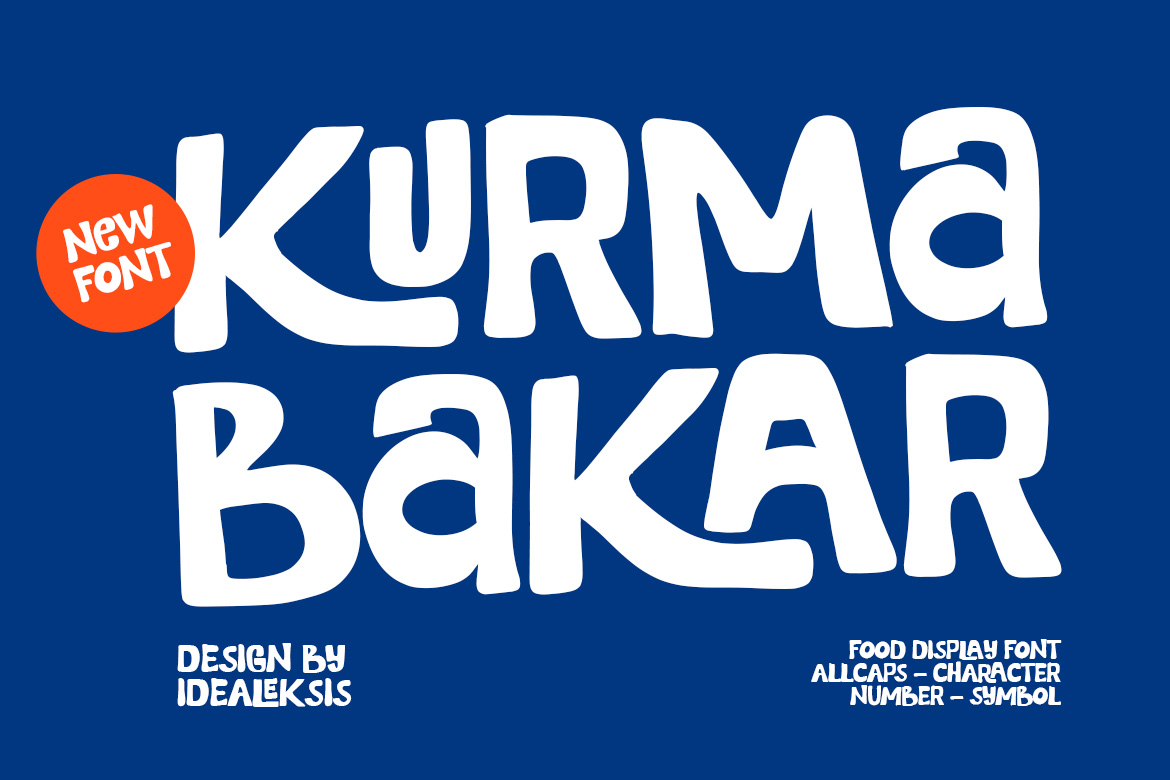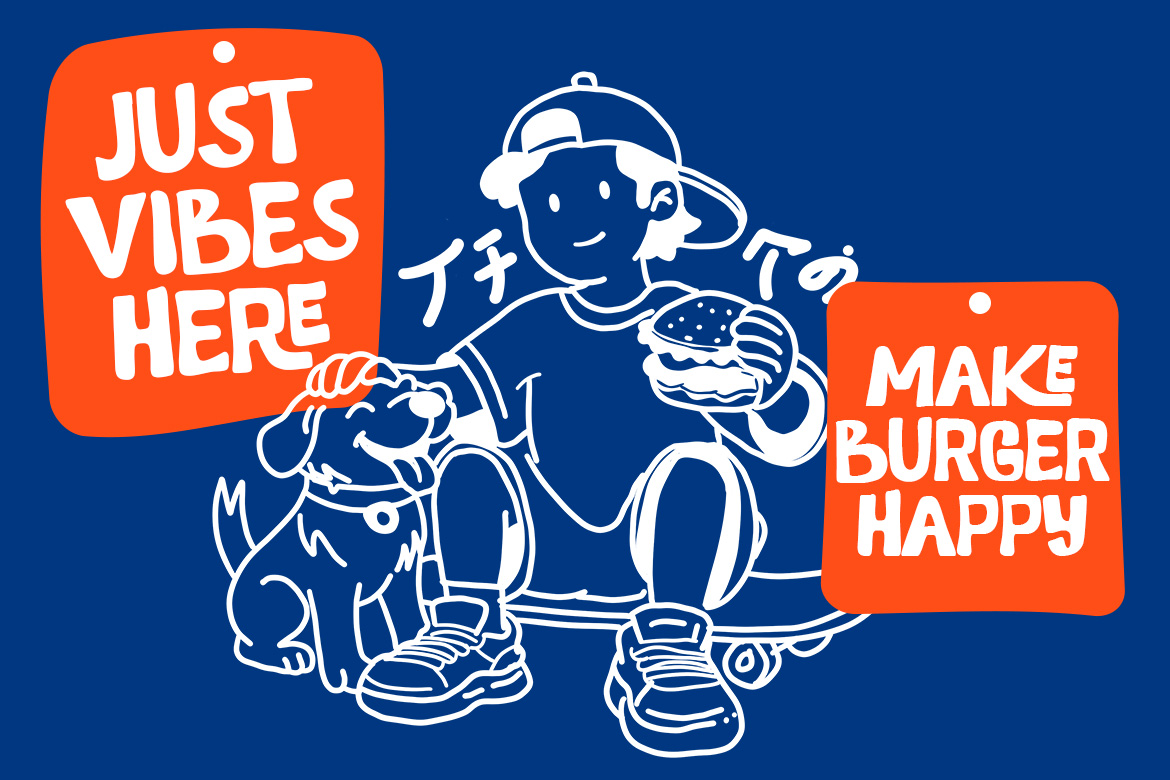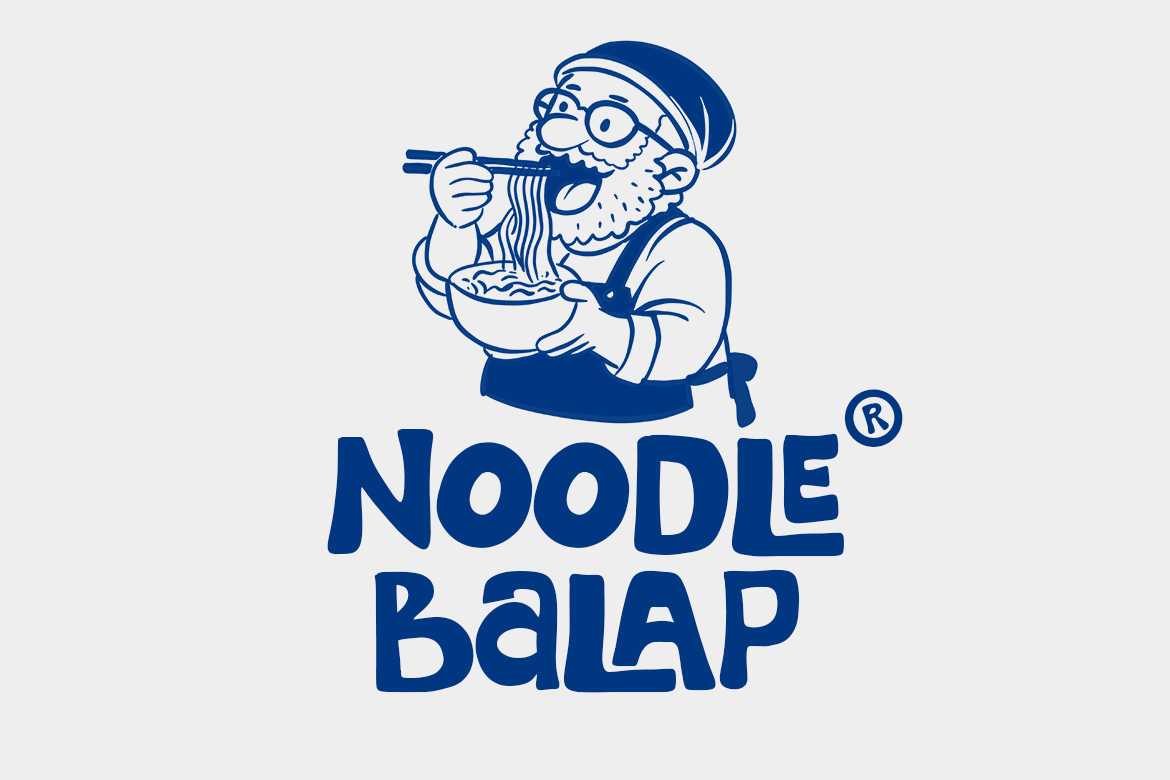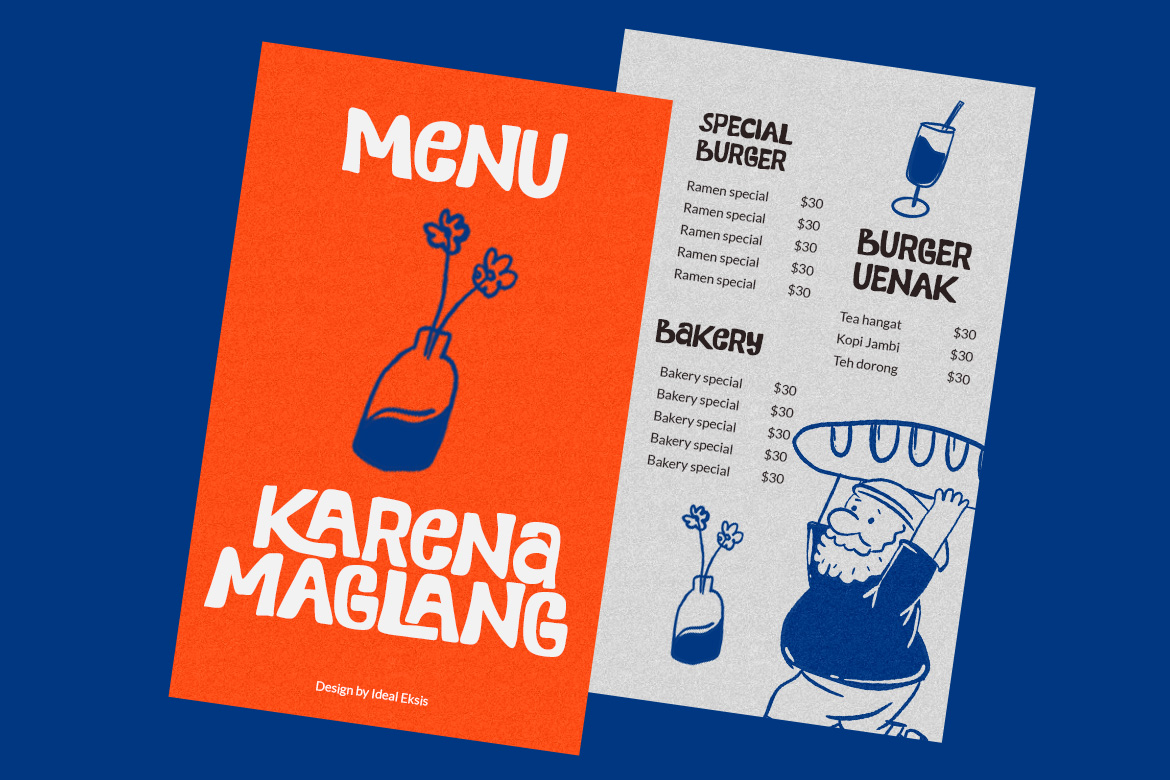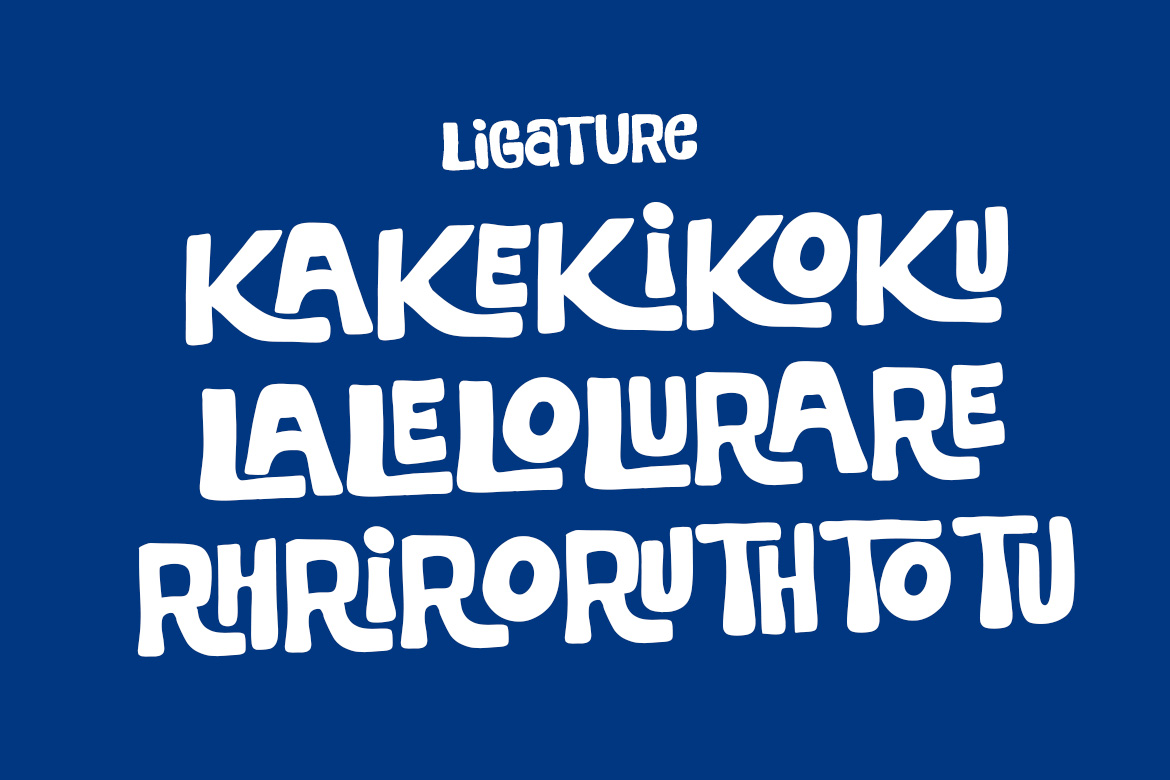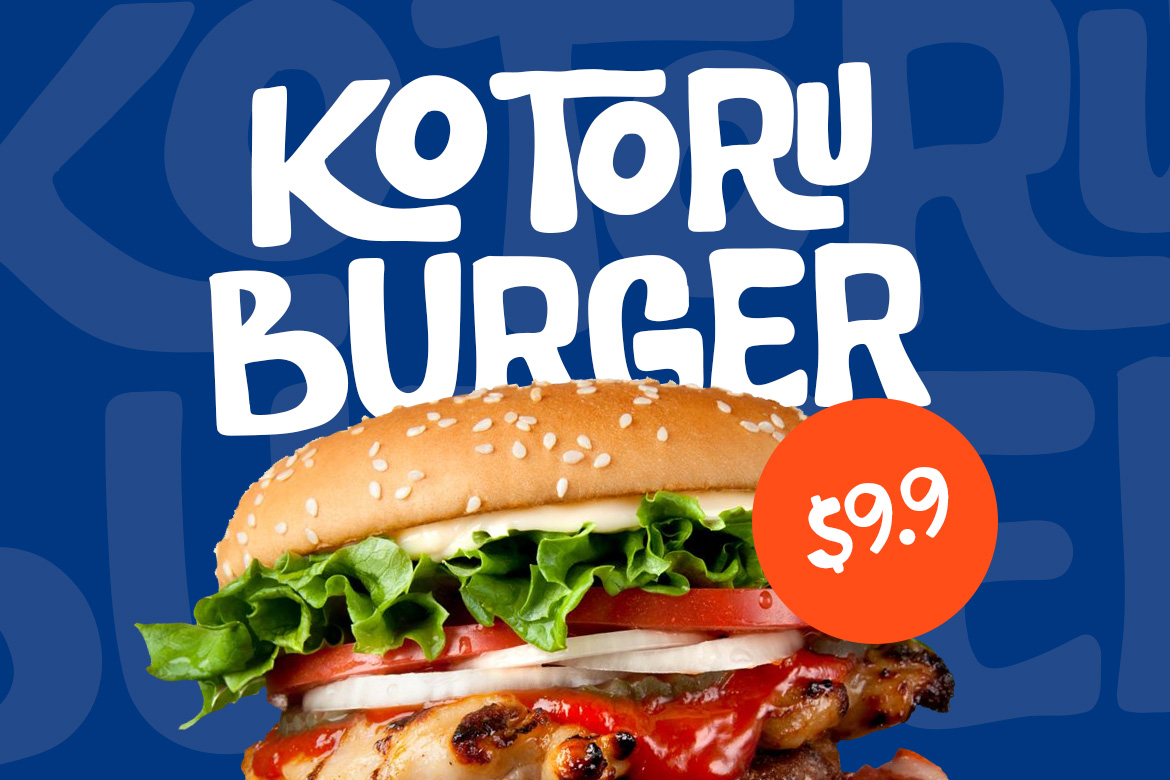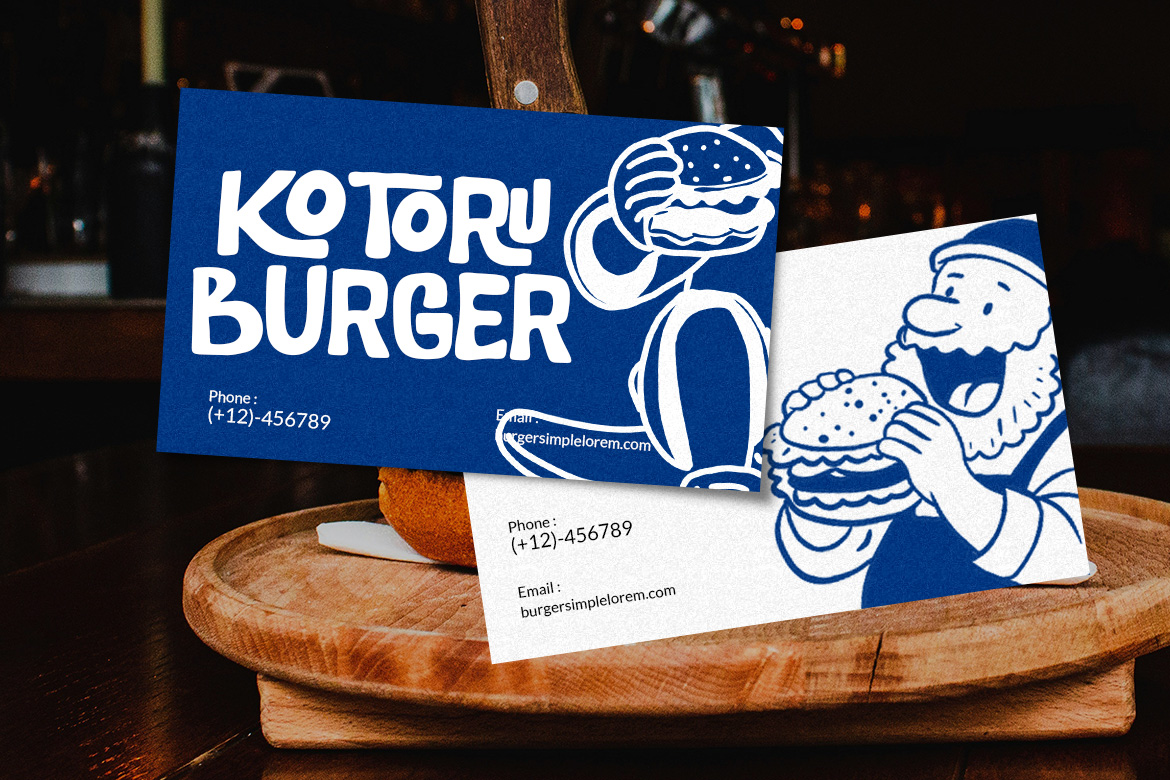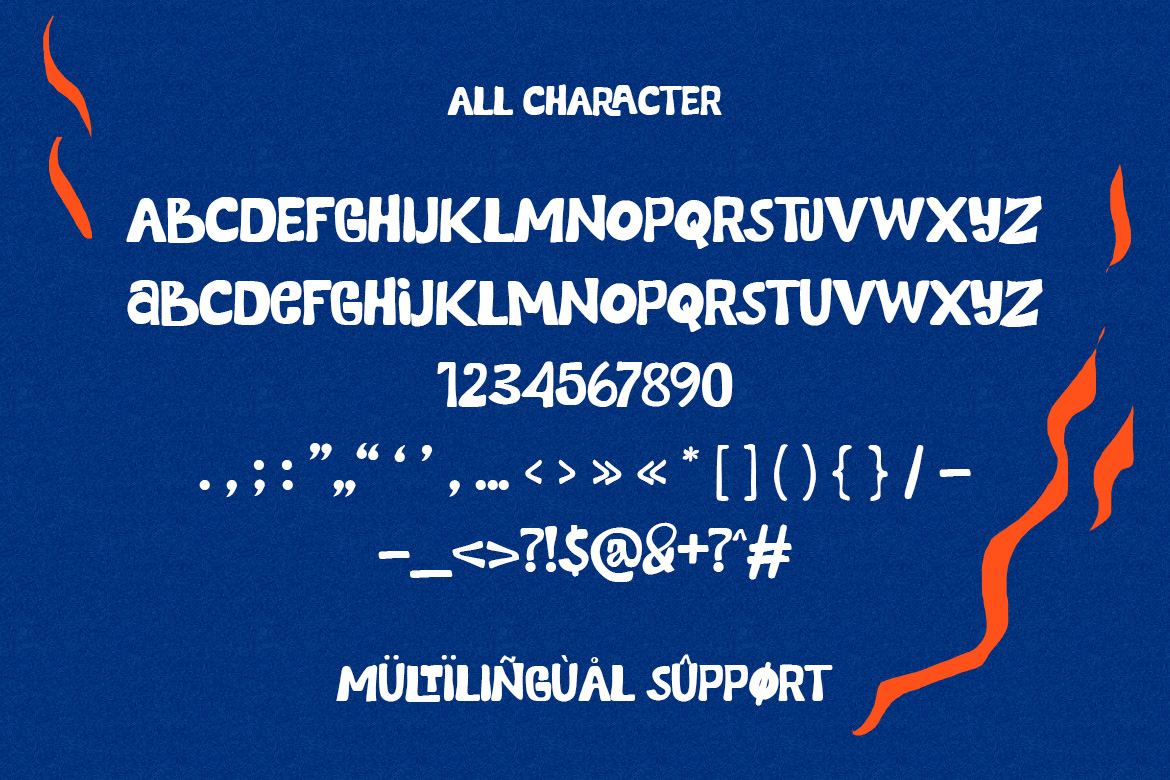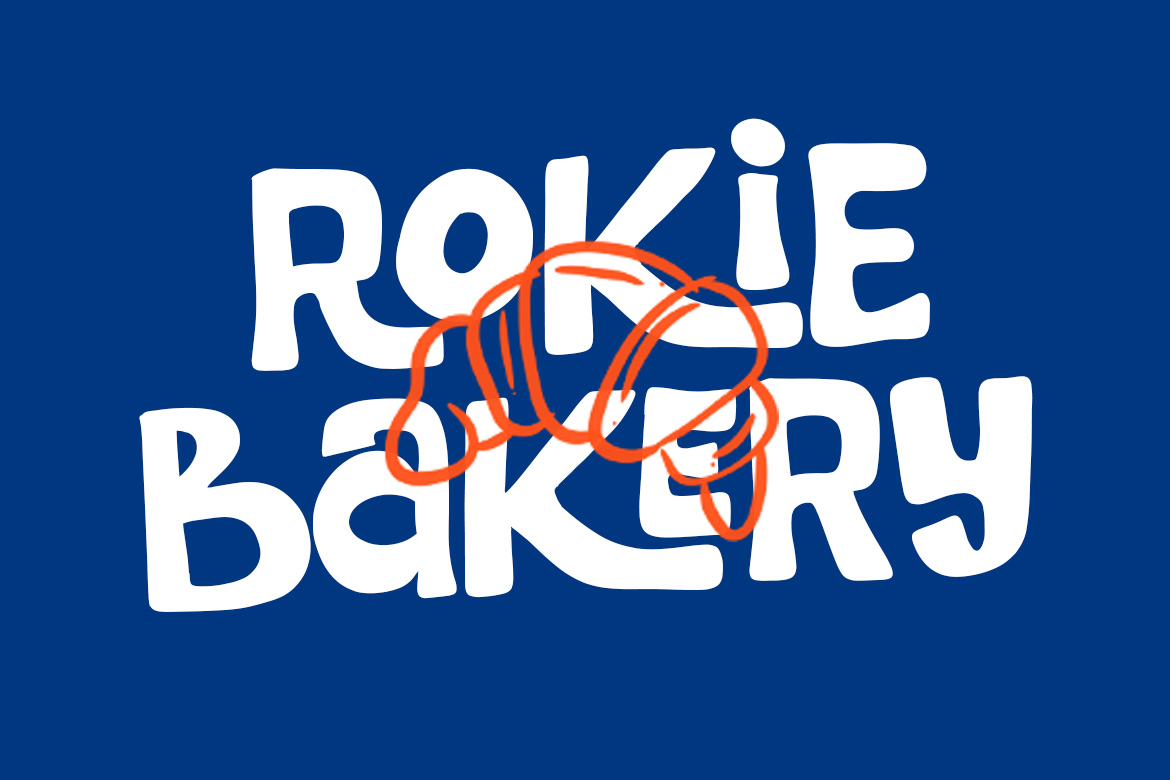
This typeface features heavy, irregular strokes with a hand-cut or paper-cut aesthetic. The letterforms are bold and chunky, with varying widths and organic, rounded terminals that give it a friendly and energetic vibe. The lack of strict geometric alignment and the presence of slight wobbles in the outlines suggest a handcrafted origin. It is an all-caps design optimized for high-impact visibility, making it ideal for packaging, signage, and creative branding projects that require a fun, informal touch.
- Uppercase (All Caps)
- Ligatures
- Numerals
- Punctuation
- Bakery and café branding
- Food and beverage logos
- Restaurant menus and signage
- Coffee shop and donut shop designs
- Food packaging and labels
- Social media food promotions
- Kitchen-themed posters and prints
- Culinary blogs and recipe graphics